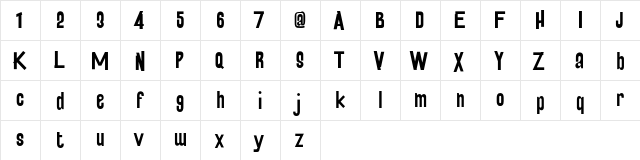
Newbeats Demo Regular
Design Context for Newbeats Demo Typeface
Newbeats Demo is a composed and adaptable typeface that performs quietly and consistently across a wide range of design contexts.